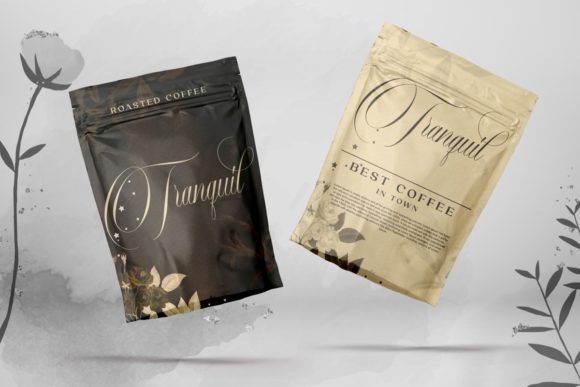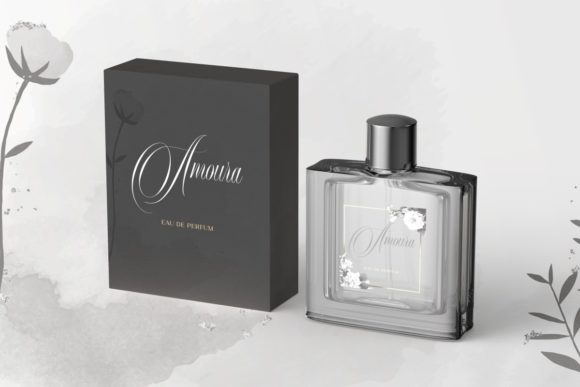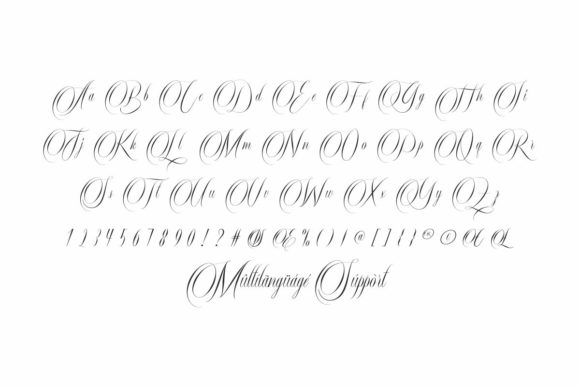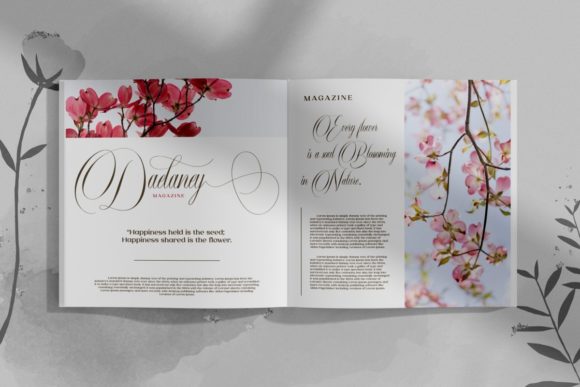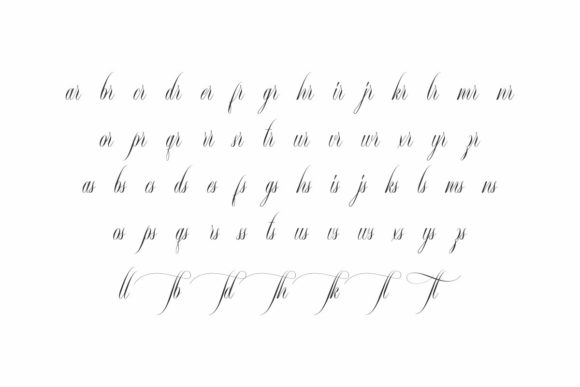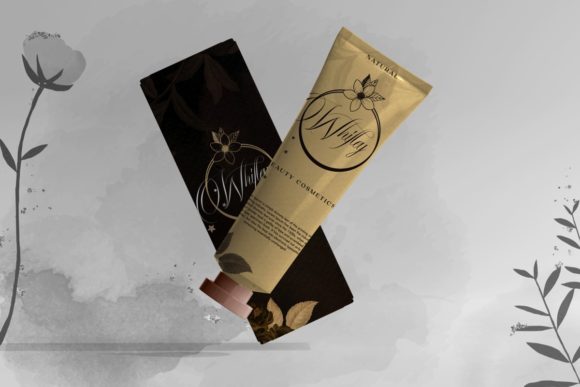
As a designer, have you ever found yourself pouring over sketches, searching for that perfect font to bring your vision to life? I know I have. It’s that moment when everything falls into place – the colors, the layout, the typography – and you know you’ve created something truly special. For me, that moment came when I discovered the Fredelina Font.
This lovely and timeless handwritten font is more than just a pretty face; it’s a powerful tool for designers looking to create eye-catching logos, branding, and quotes that truly stand out. With its unique and beautiful touch, every letter comes alive, making your design shine. And the best part? The Fredelina Font is PUA encoded, making it incredibly easy to access all of its amazing glyphs and ligatures.
- Unique Characteristics: The Fredelina font features a unique, elegant design with subtle flair and flair lines, making it suitable for formal and creative projects
Review of Fredelina Font
As a designer, I’m always on the lookout for unique and visually appealing fonts to add to my toolkit. The Fredelina Font is a recent discovery that caught my eye. Here’s my honest review.
- Unique Character: The Fredelina Font has a distinctive, whimsical feel that sets it apart from more common fonts.
- Legibility: Despite its playful nature, the font is surprisingly easy to read, making it suitable for body text.
- Compatibility: The font is available in a range of weights and styles, ensuring it can be used in various design contexts.
- Limited Line Spacing: The font’s compact nature can sometimes result in cramped line spacing, particularly in long blocks of text.
- Overuse Potential: The Fredelina Font’s distinctive style may be overwhelming if overused, making it essential to use it judiciously.
While the Fredelina Font has some limitations, its unique character and versatility make it a valuable addition to any designer’s toolkit. With careful use, this font can add a touch of personality to your designs.
Getting the Most Out of Fredelina Font
For optimal results, use Fredelina Font in combination with elegant graphics and subtle colors. Experiment with different font sizes and styles to create visual interest. You can also pair Fredelina with other fonts to create a unique and eye-catching design.
Fredelina Font is suitable for various designs, including:
– Wedding invitations and stationery
– Luxury branding and packaging
– Elegant websites and digital products
– Fine art and creative projects